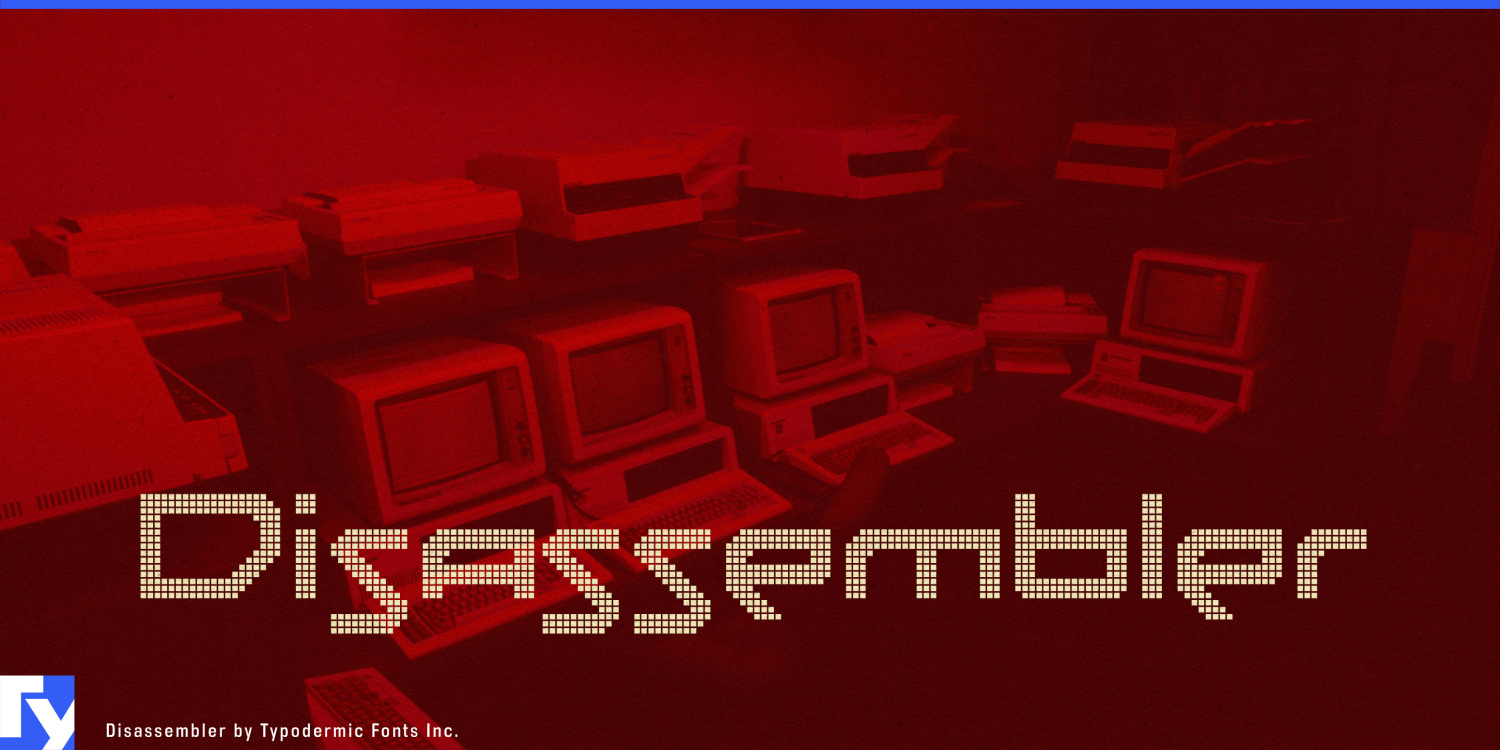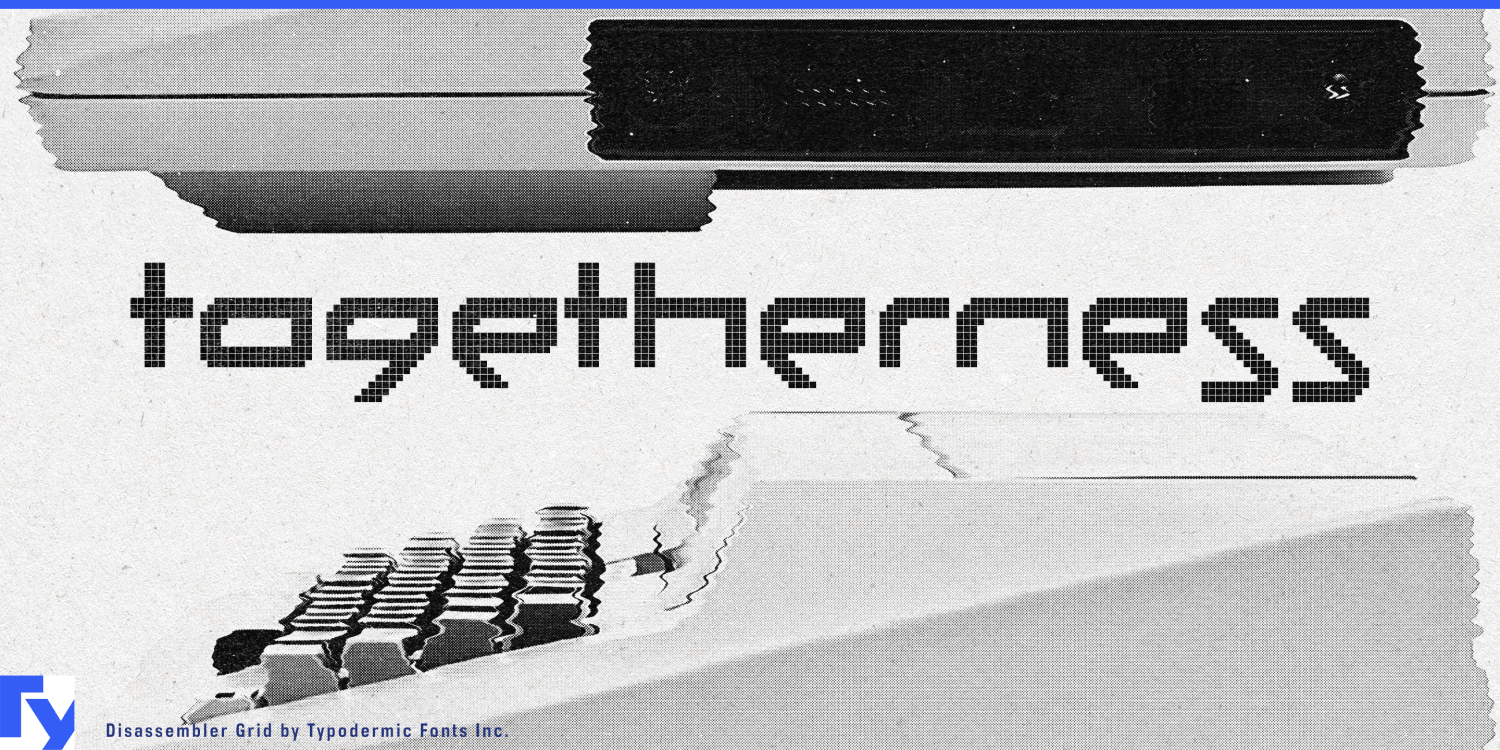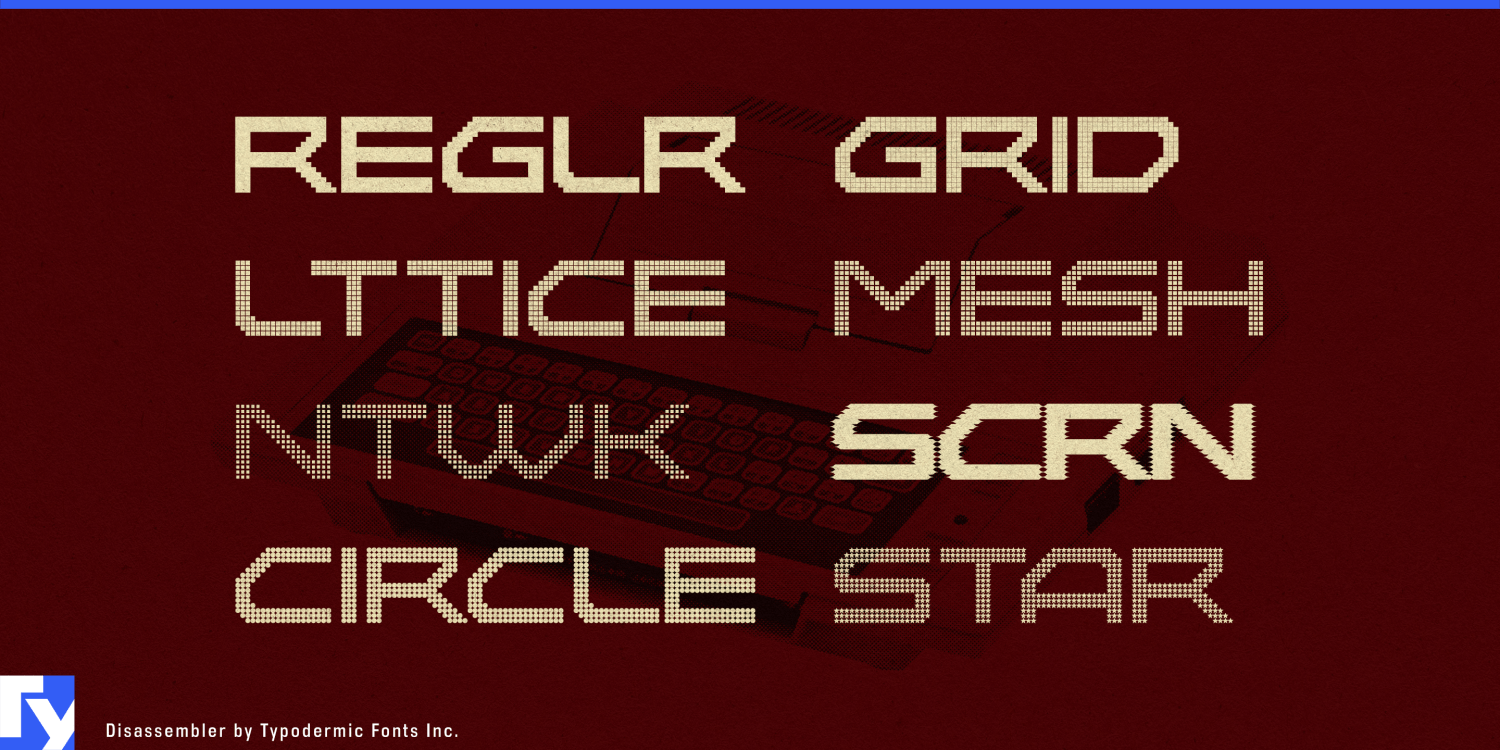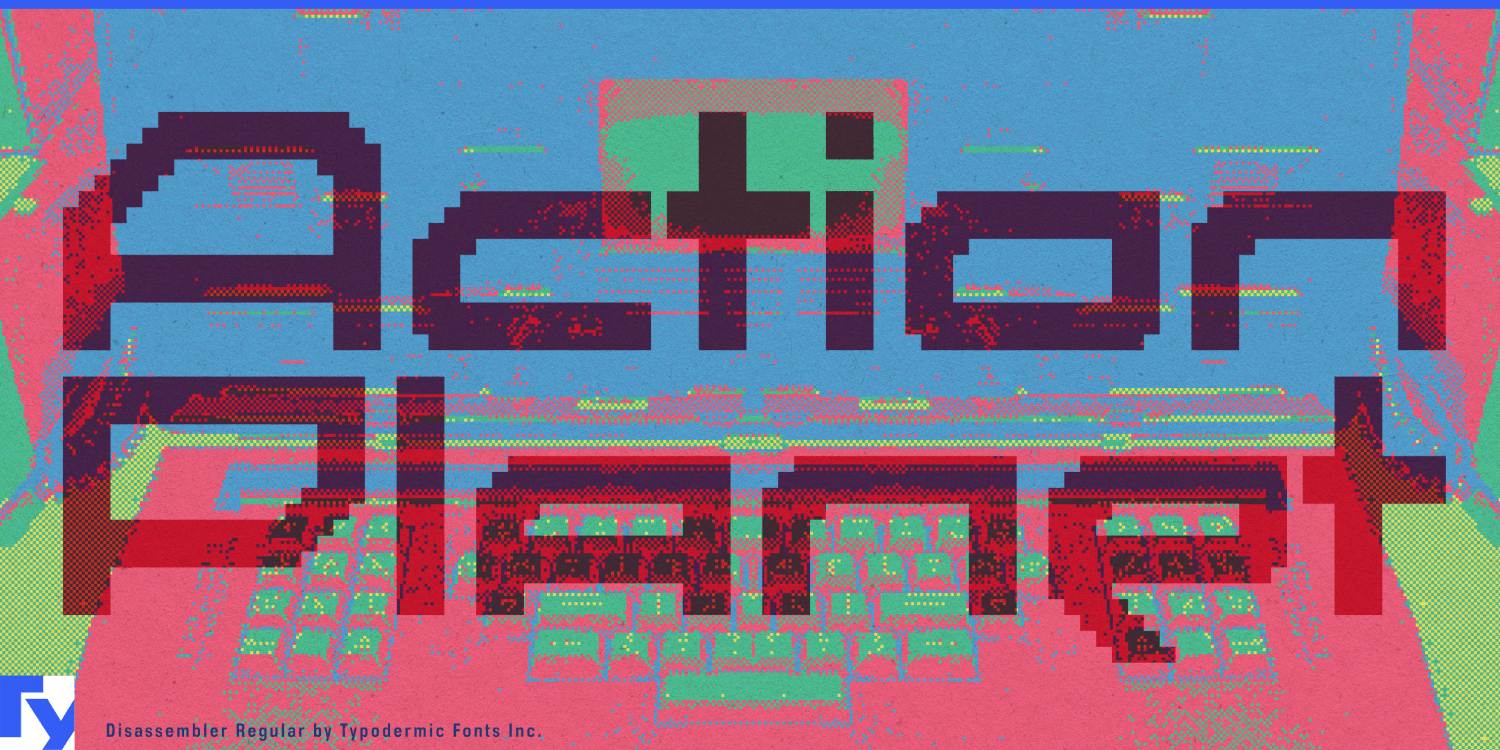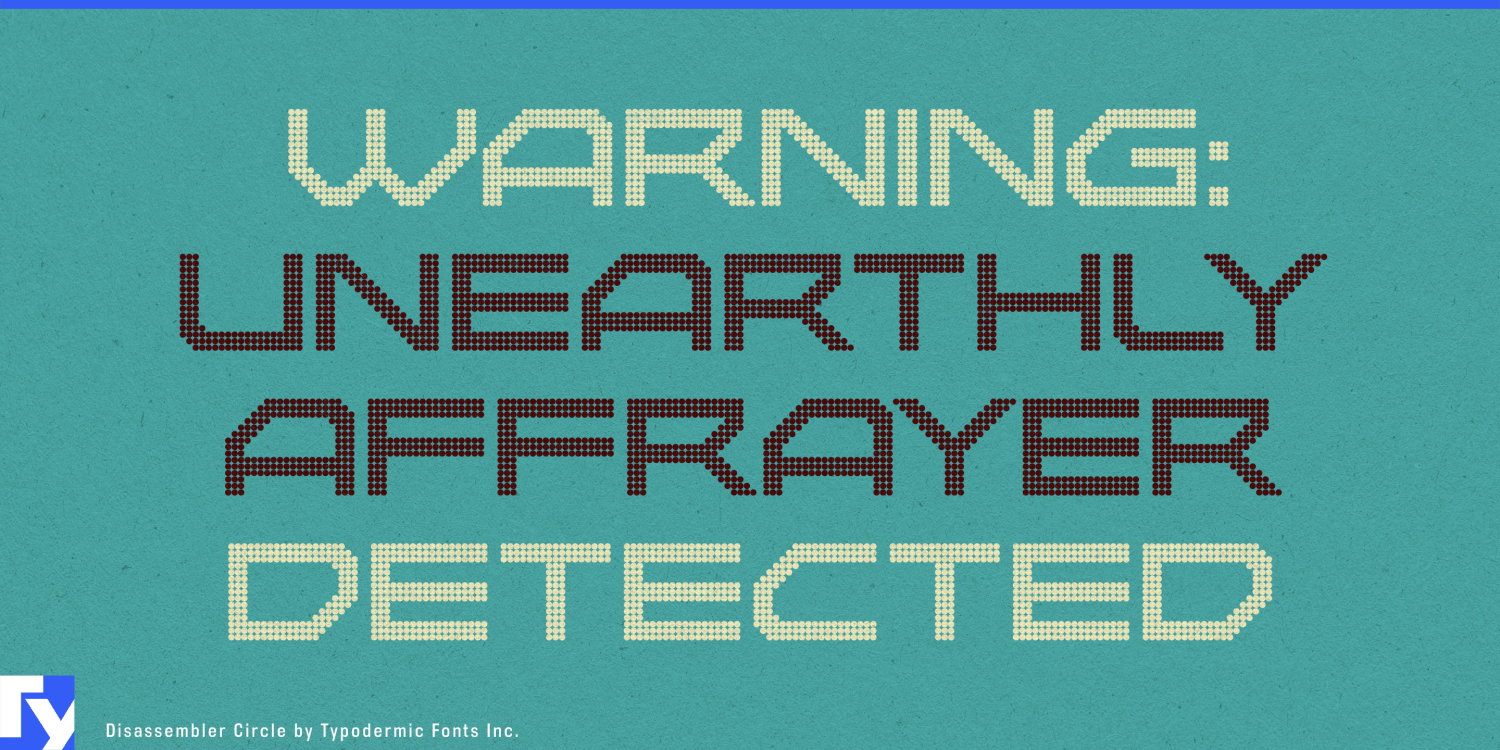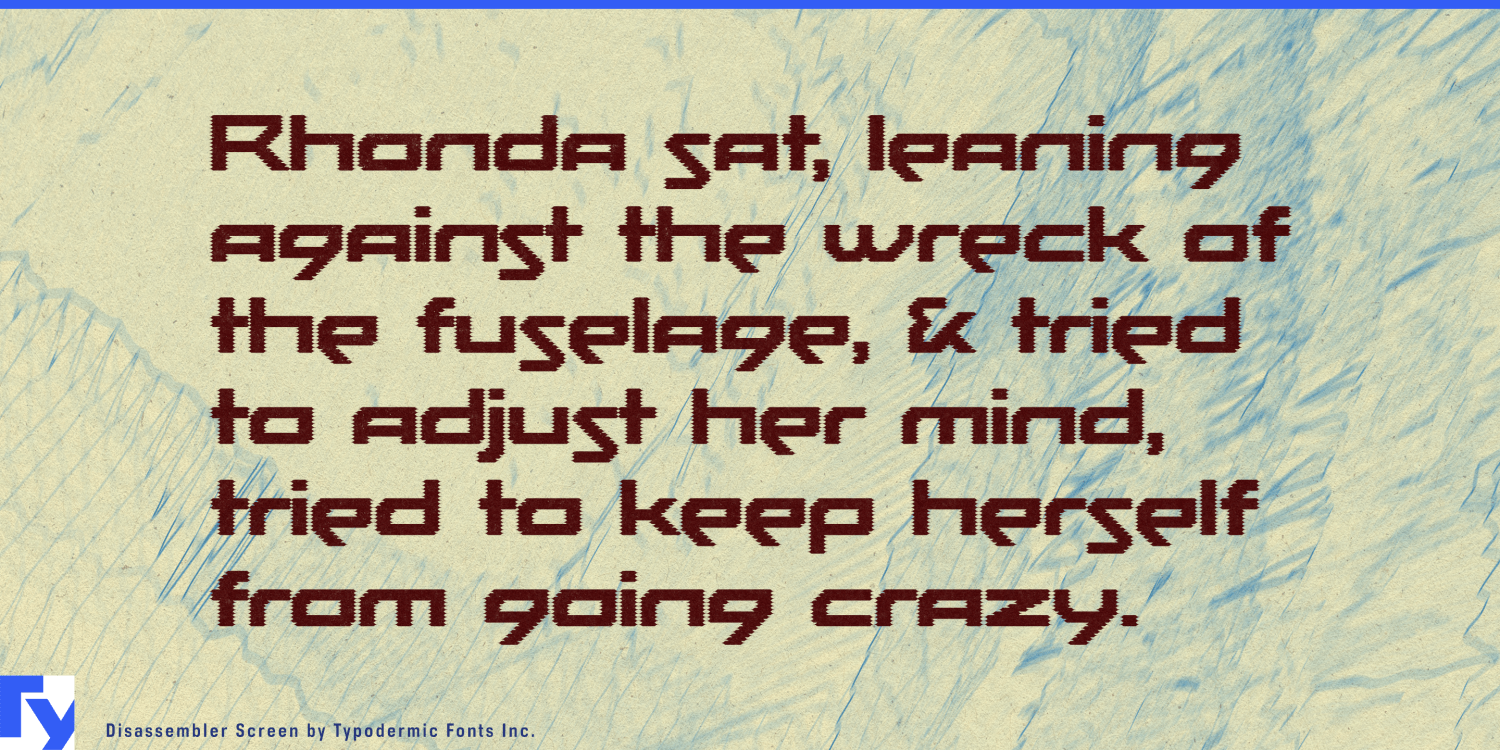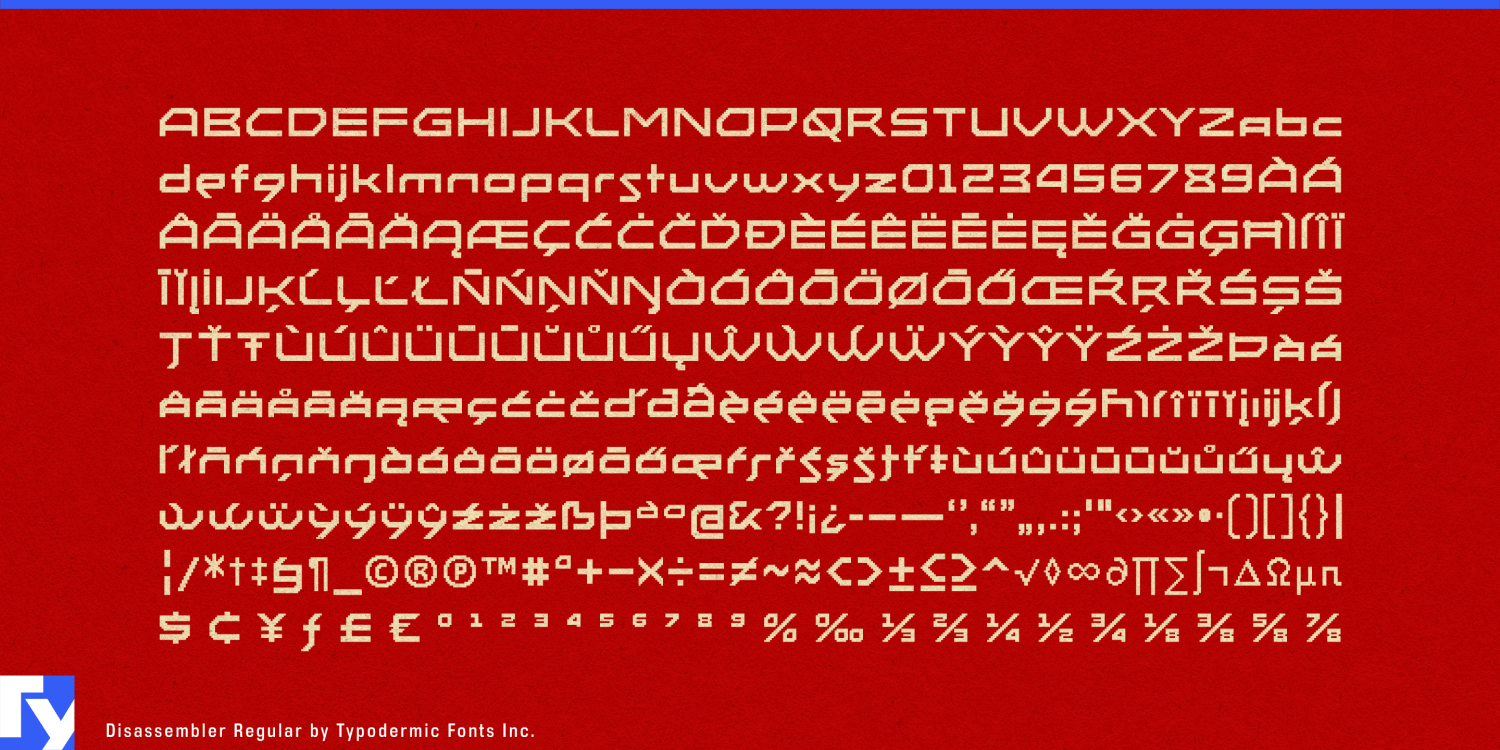
Disassembler
Buy NowDisassembler is a pixel-built display family that gets more interesting as it gets bigger. Its eight styles begin with the same blocky letterforms, then alter the surface: pixels close up, separate into fine grids, break into lattice and mesh structures, form networks, pick up horizontal screen interference, or change shape entirely. At headline size these differences are obvious; spread across a trade-show wall, exhibition display, launch film, or full-screen website, the gaps and patterns become part of the image.
The alphabet itself has an unusual rhythm. Disassembler’s capitals don’t settle into the visually even proportions associated with generic bitmap lettering; broad and narrow forms bump against one another, giving names and short phrases a slightly awkward, engineered silhouette. That irregularity helps the family escape the familiar retro-pixel look.
Disassembler is particularly well suited to the technological side of defence branding. Autonomous systems, military aerospace, radar and sensing, secure communications, surveillance technology, simulation, and electronic warfare all provide contexts where its fragmented geometry can feel purposeful rather than decorative. On defence-contractor exhibition stands, product-launch graphics, equipment-family identities, demonstration films, and large technical-marketing displays, the finer styles can suggest arrays, signal processing, targeting screens, telemetry, or electronic hardware without imitating a specific interface. This is display typography for the presentation layer around the technology, rather than something intended for dense operational information.
The same construction can turn considerably darker in cybersecurity. Mesh, Network, Lattice, and Screen can make a headline appear scanned, intercepted, filtered, or partially reconstructed. Used for threat-intelligence campaigns, security-product launches, red-team services, incident-response graphics, conference stages, or large website headlines, Disassembler can move toward a sinister near-future atmosphere without resorting to the standard neon cyberpunk vocabulary. Put it beside surveillance photography, thermal imagery, maps, machine vision, or austere technical diagrams and those narrow gaps start feeling less like retro pixels and more like compromised information.
The eight styles provide different degrees of that effect. Regular keeps the underlying forms comparatively direct. Grid, Lattice, Mesh, and Network progressively turn the letters into structures. Screen interrupts them with a stronger display texture, while Circle and Star replace the expected square pixel with more conspicuous repeating units. Because the construction becomes easier to see as the type grows, changing styles can create hierarchy within a single visual system: a relatively solid product name, a screened campaign title, or an enormous patterned word used almost as an architectural graphic.